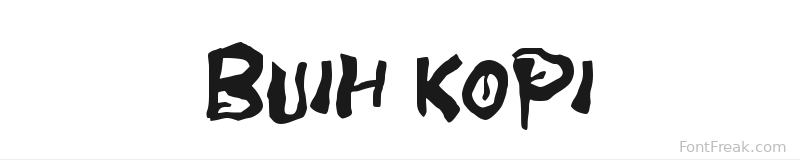
BUIH KOPI
About BUIH KOPI
BUIH KOPI, created by Wahyu Eka Prasetya, is a captivating display font that embodies a unique blend of artistic flair and playful energy. This font is characterized by its irregular, hand-drawn style, which gives it a casual yet impactful presence. The stroke weight varies throughout the letters, providing an organic feel that enhances its visual appeal. The contrast between thick and thin strokes adds depth, while the spaced-out letters ensure readability, making it suitable for a variety of design projects.
The BUIH KOPI font shines in specific use cases such as coffee shop branding, where it can evoke a warm, inviting atmosphere on menus or signage. It also works wonderfully for creative event invitations, such as art exhibitions or music festivals, where a sense of fun and originality is desired. Additionally, this font is ideal for merchandise designs, such as T-shirts and tote bags, that aim to capture attention and express individuality. Graphic designers, small business owners, and content creators will find this font particularly appealing as it allows them to convey a friendly and approachable brand identity.
What sets BUIH KOPI apart is its distinctiveness; it captures the essence of hand-crafted artistry while remaining versatile enough for various applications. The combination of its playful yet bold aesthetic makes it a standout choice for those looking to make a memorable impression. With its freeware license, the BUIH KOPI font free download offers an excellent opportunity for both personal and commercial projects, allowing users to infuse their designs with a unique character that resonates with audiences. Embrace the creative potential of BUIH KOPI and elevate your design projects today.